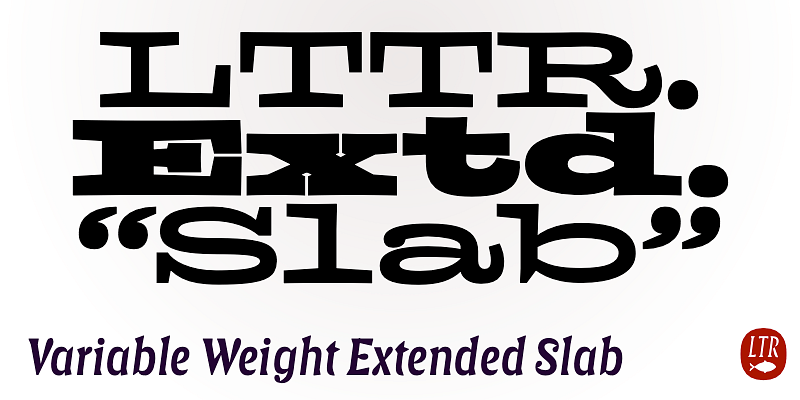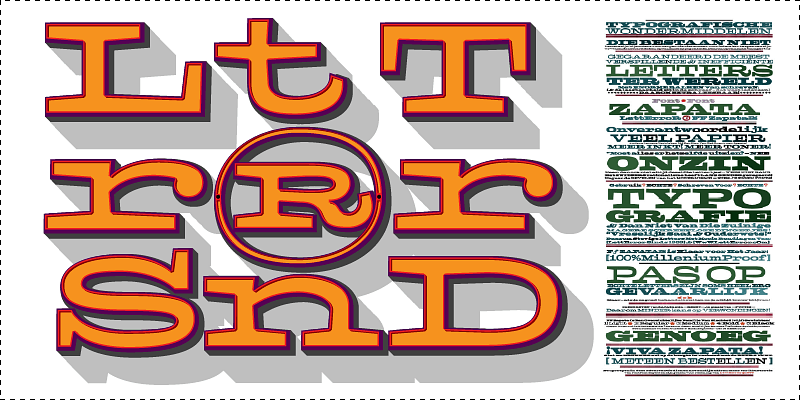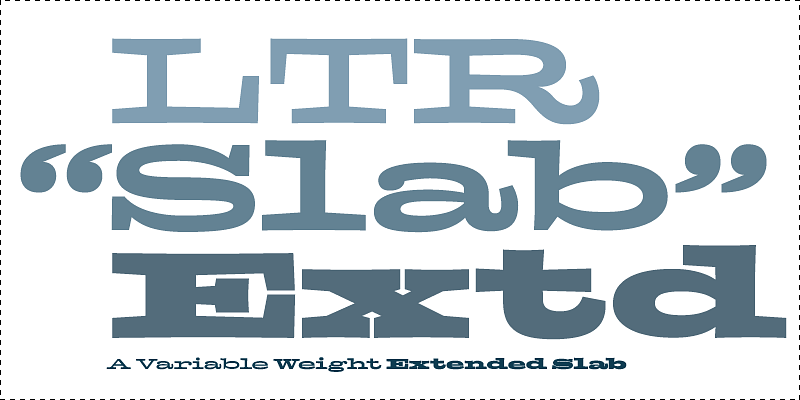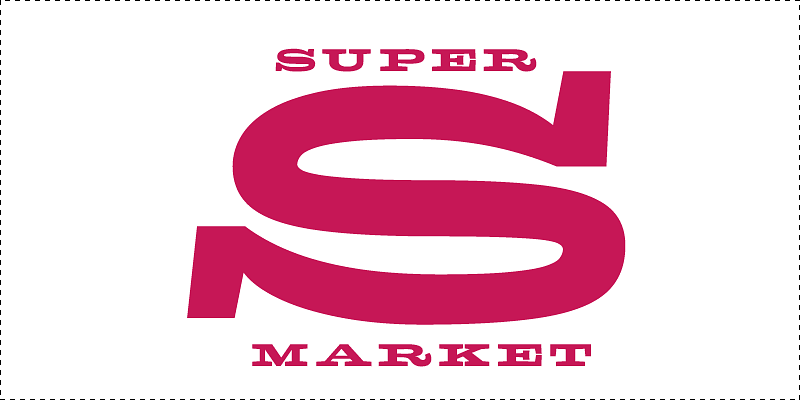
Slab Extended is the new name for an old friend. Inspired by historic models but not a revival, this low-contrast, slab-serif is the perfect choice when you’ve got all kinds of space to spread out. A variable font, the weights can be dialed way up for page-filling professing. Combine lines of different weights to liven up long lists.